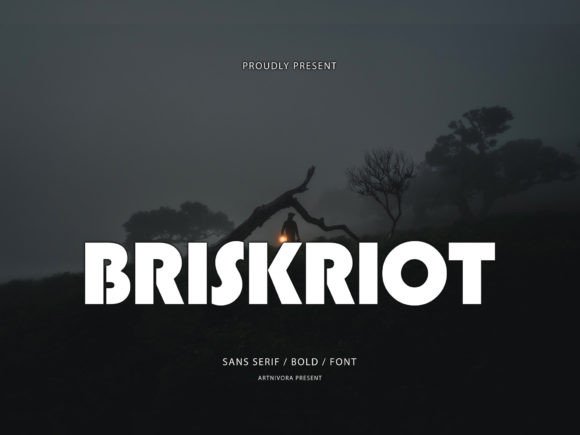
Behold, Briskriot - an enchanting sans serif font, carefully designed to captivate and inspire.
With its sleek and modern curves, Briskriot exudes an air of sophistication and elegance. Its clean lines and balanced proportions make it a versatile choice for both digital and print projects.
Let Briskriot be your artistic ally in crafting logos that leave a lasting impression. Its strong and distinct characters will ensure your brand's message shines through, commanding attention and sparking recognition.
Unleash your creativity with Briskriot in crafting captivating magazine layouts that engage readers and leave them yearning for more. Its crisp and legible letterforms will effortlessly guide their eyes through the pages, making your content shine.
Harness the power of Briskriot to elevate your social media presence. Its versatility and charm will add a touch of elegance to your posts, stories, and ads, making your brand stand out in the crowded digital landscape.
Let Briskriot be your trusted companion in creating brochures that captivate and inform. Its clear and readable text will ensure your message is conveyed with impact, leaving a lasting impression on your audience.